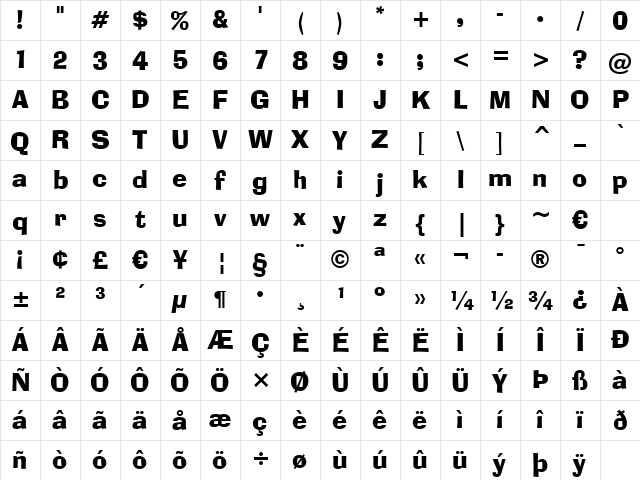
AdLib BT Regular
AdLib BT Family
Design Context for AdLib BT
AdLib BT is a composed and adaptable typeface that performs quietly and consistently across a wide range of design contexts.